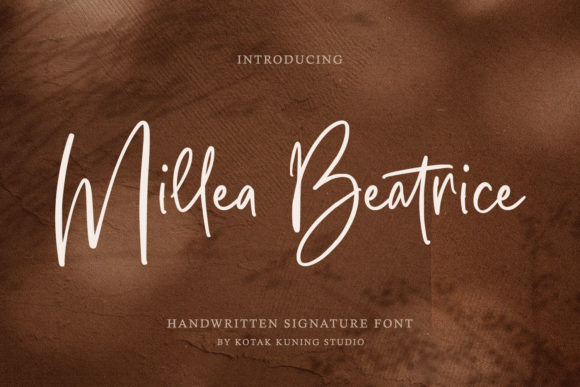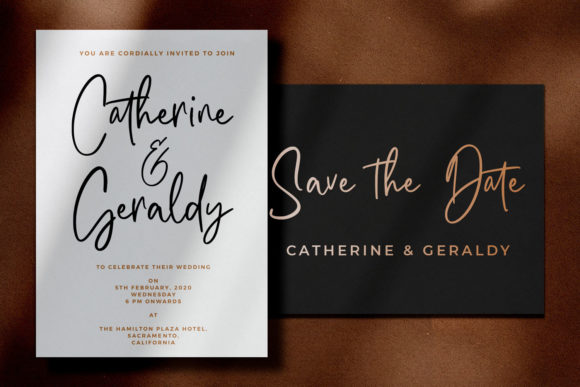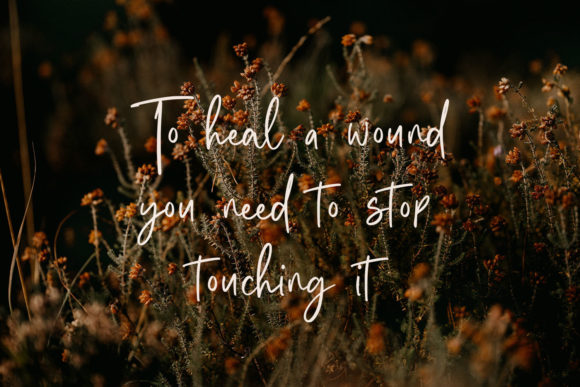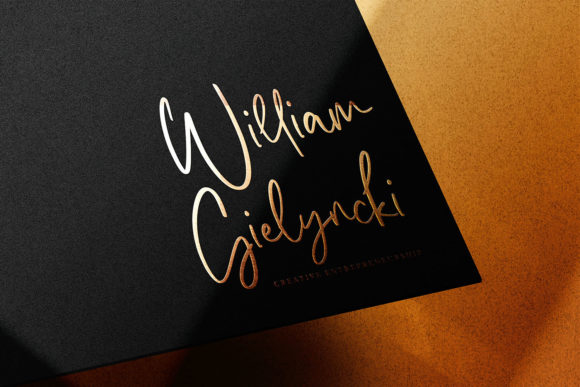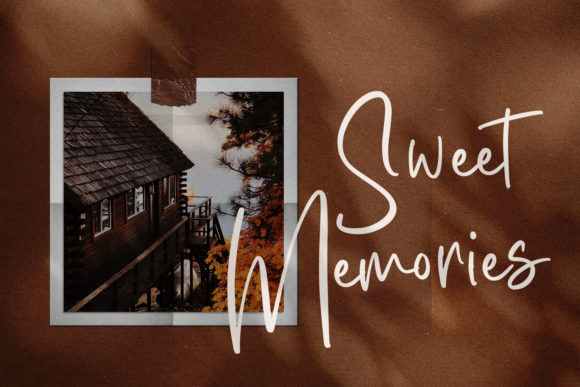
About Millea Beatrice Font
Millea Beatrice is a beautiful handwritten signature script font. Perfect for making elegant stylish statements – or adding a touch of class to your designs. This font is PUA encoded which means you can access all of the amazing glyphs and ligatures with ease!